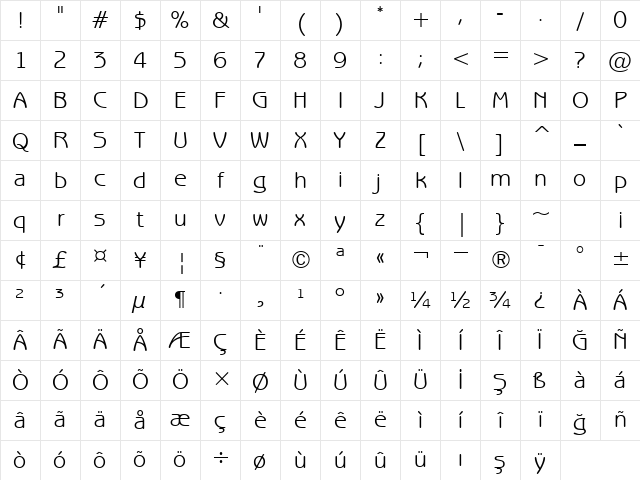
00300 Regular
Design Context for 00300
00300 is a composed and adaptable typeface that performs quietly and consistently across a wide range of design contexts.